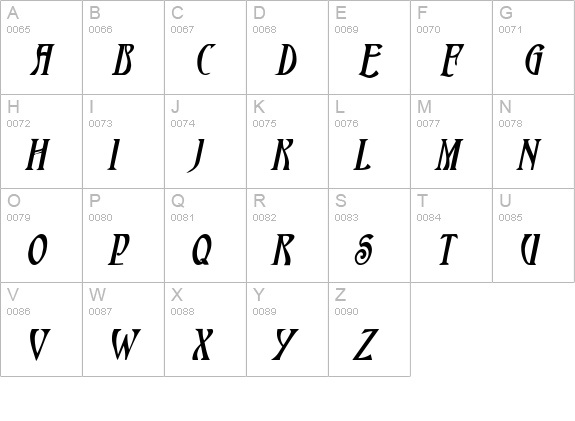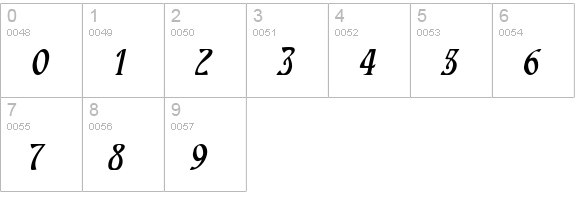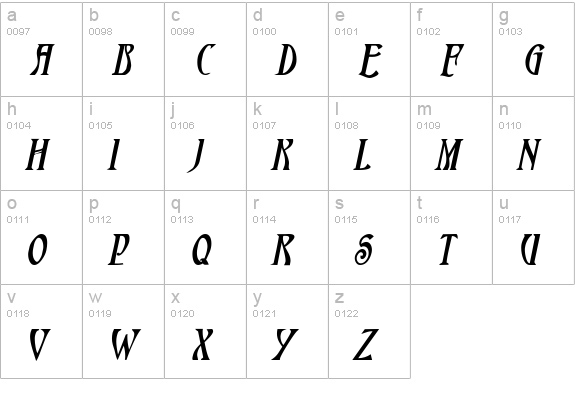
HardinCaps Bold Italic is a strong, high-contrast, italic variant in the HardinCaps typeface family \xE2\x80\x94 well suited to headlines, attention-grabbing titles, and strong calls-to-action.
Introducing HardinCaps Bold Italic, a striking and dynamic font that exudes a sense of strength and elegance. With its bold and italic design, this typeface commands attention and adds a touch of sophistication to any project. HardinCaps Bold Italic is the perfect choice for those seeking a font that combines the best of both worlds - boldness and style. Its distinct letterforms are meticulously crafted, ensuring every character stands out with precision and clarity. One of the unique aspects of HardinCaps Bold Italic is that it is freely available for download at FontsMarket.com. This means that designers, creatives, and enthusiasts alike can access and utilize this remarkable font without any cost or restrictions. The freedom to use HardinCaps Bold Italic in a wide range of projects, from branding and packaging to headlines and advertisements, allows for endless possibilities and creativity. The versatility of HardinCaps Bold Italic knows no bounds. Whether used in print or digital media, this font effortlessly adapts to various design contexts, ensuring a visually captivating result. Its strong and bold presence makes a statement, while the italicized touch adds a touch of elegance and flair. With its clean lines, well-defined curves, and balanced proportions, HardinCaps Bold Italic offers legibility and readability, even at smaller sizes. The font's attention to detail ensures that every character is visually harmonious, ensuring a cohesive and polished appearance. HardinCaps Bold Italic is a font that refuses to be ignored. Its striking presence, combined with its unique blend of boldness and elegance, makes it a standout choice for any design project. Download this exceptional font for free at FontsMarket.com and unlock the potential to create visually stunning and impactful designs that leave a lasting impression.